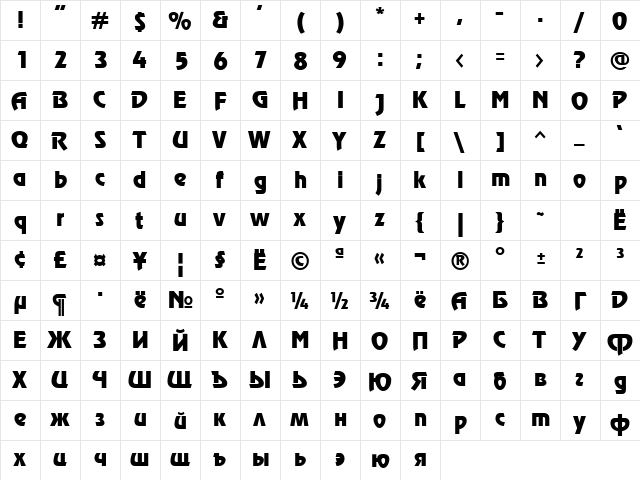
Renew Normal Font Preview
Renew Normal
Renew Normal Font Details
Design Context for Renew Typeface
Renew is a composed and adaptable typeface that performs quietly and consistently across a wide range of design contexts.